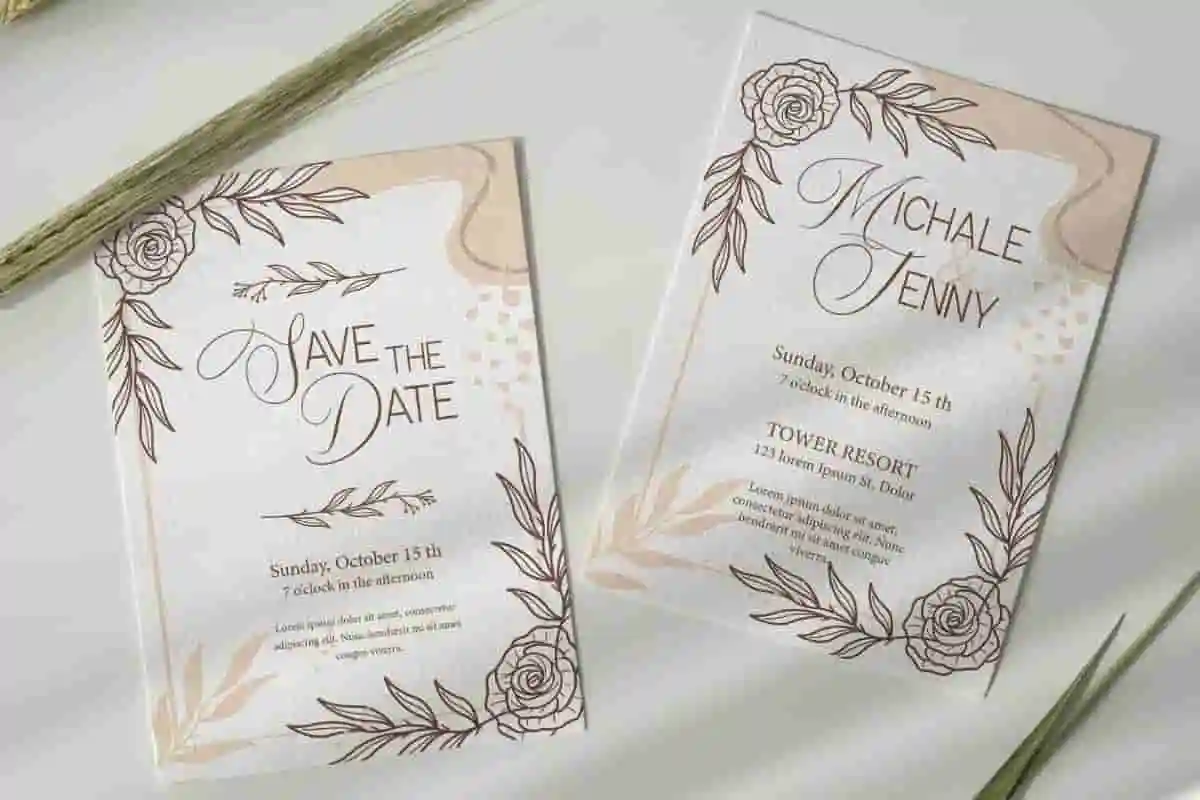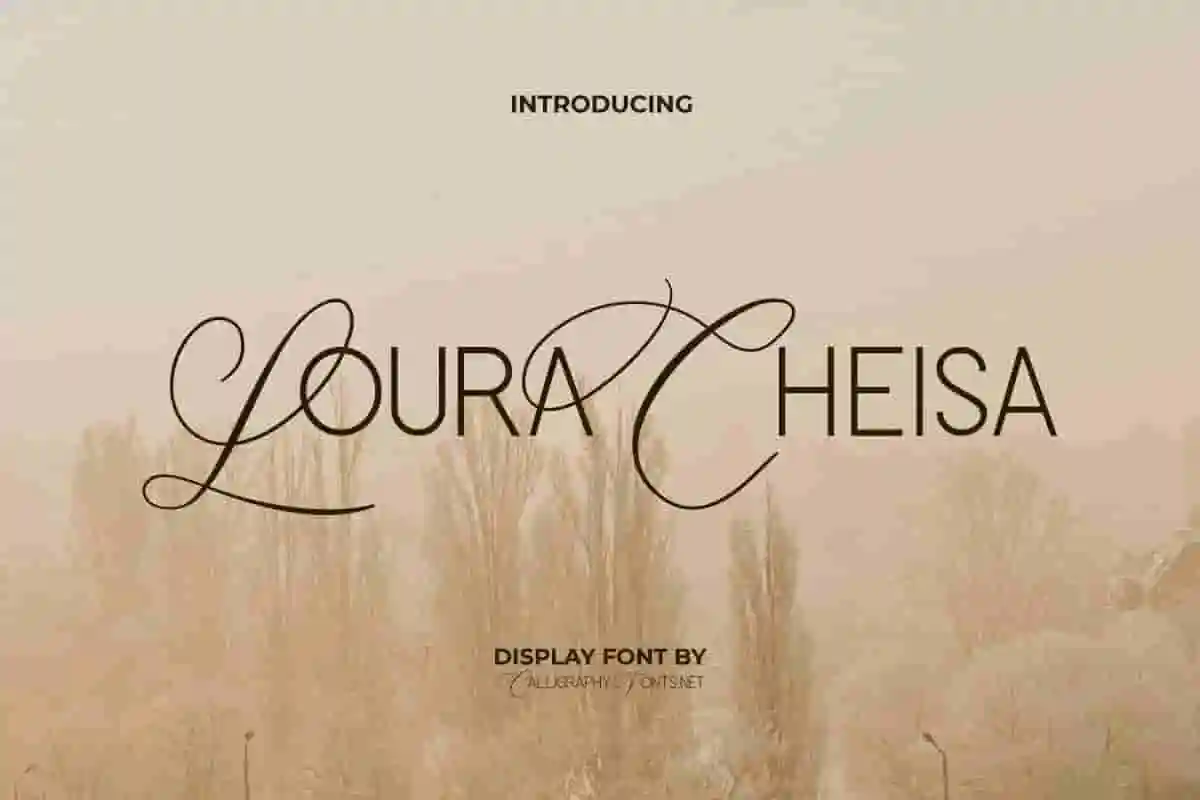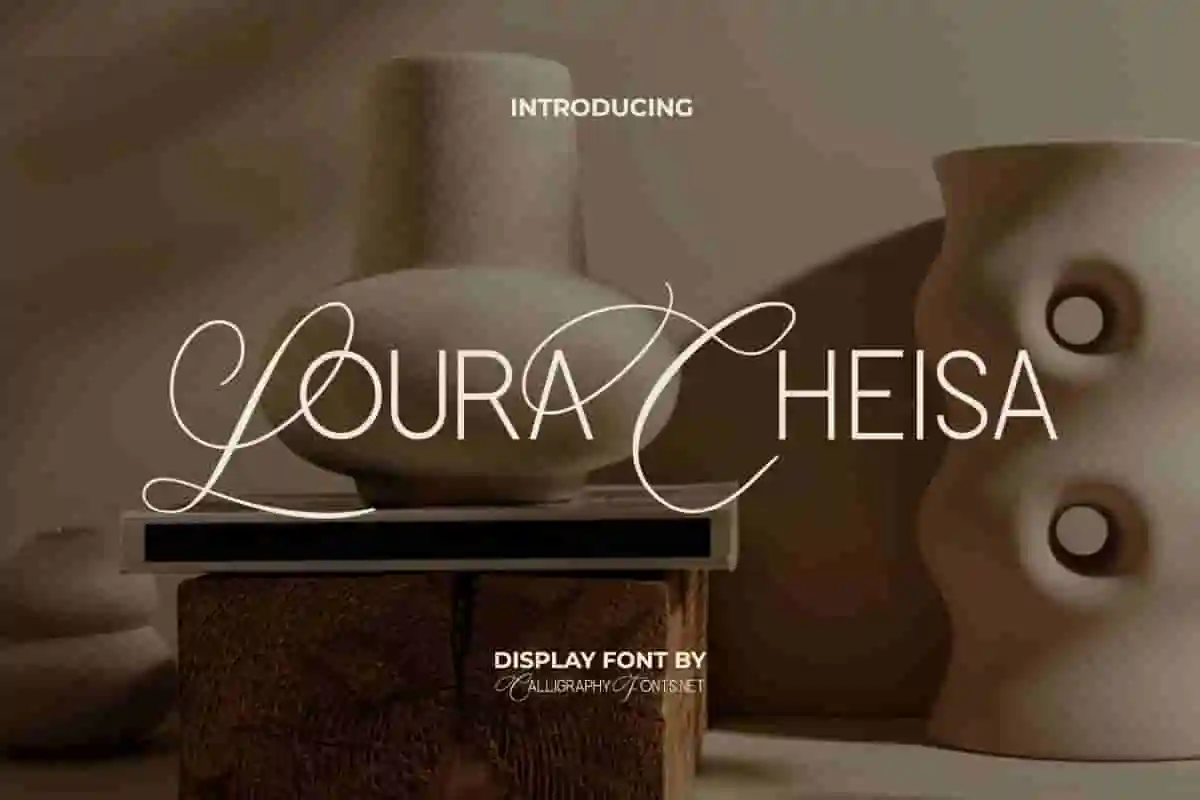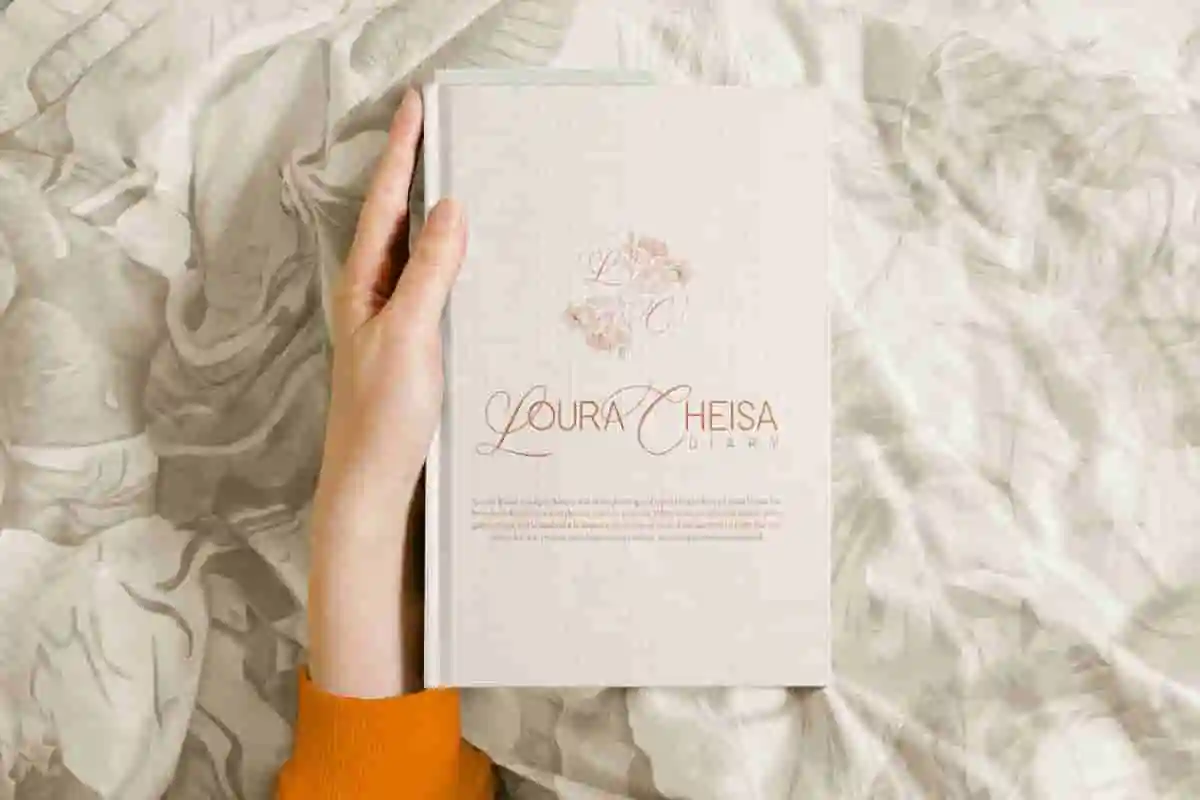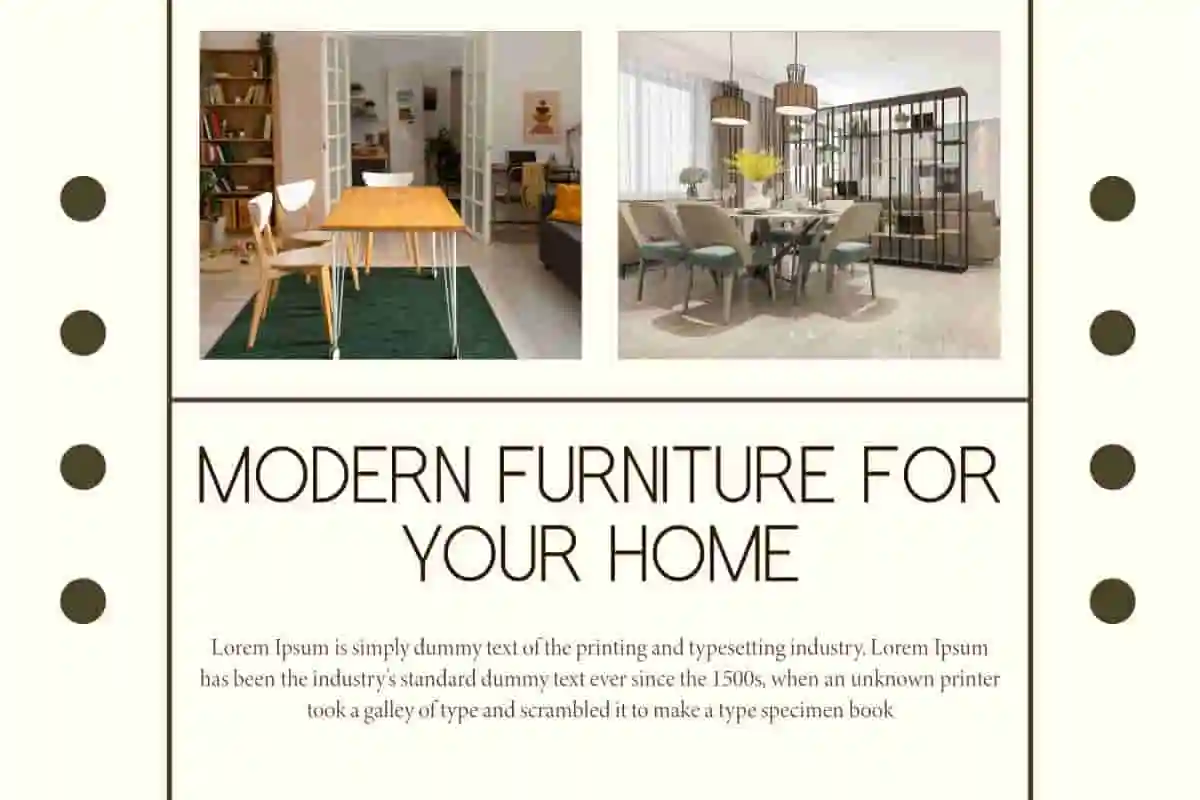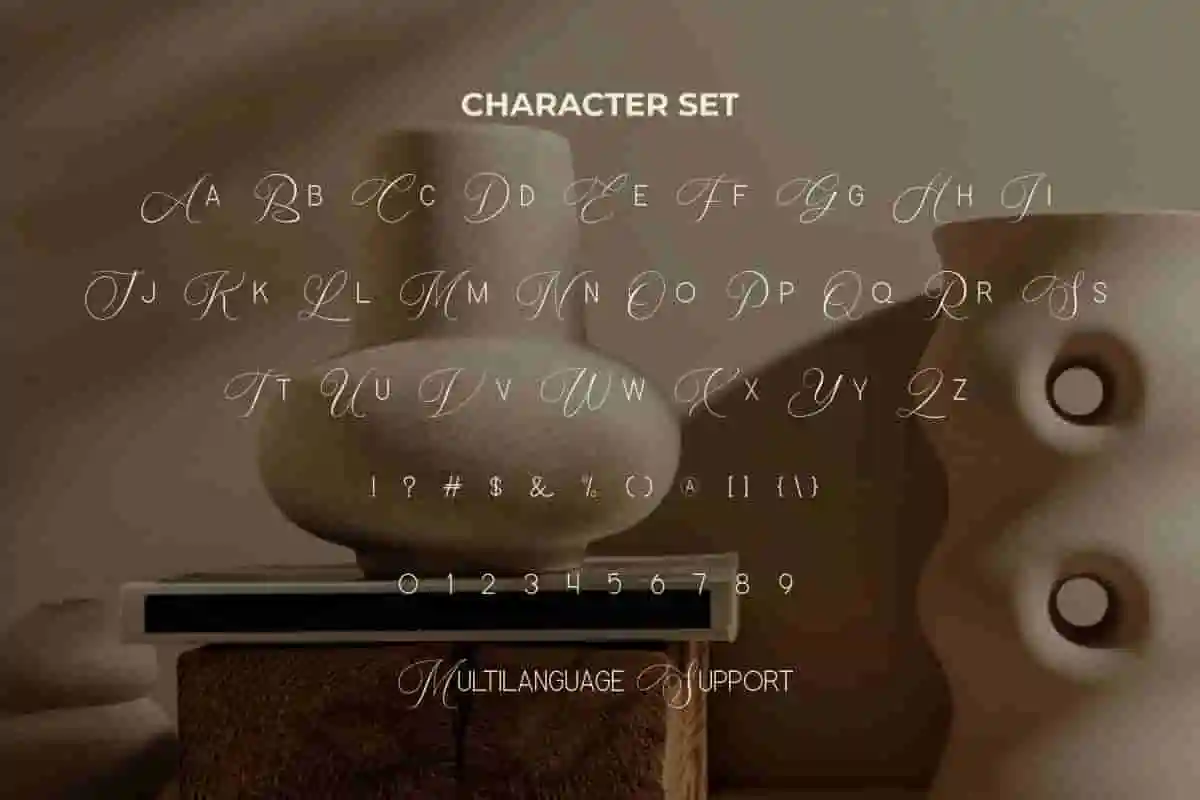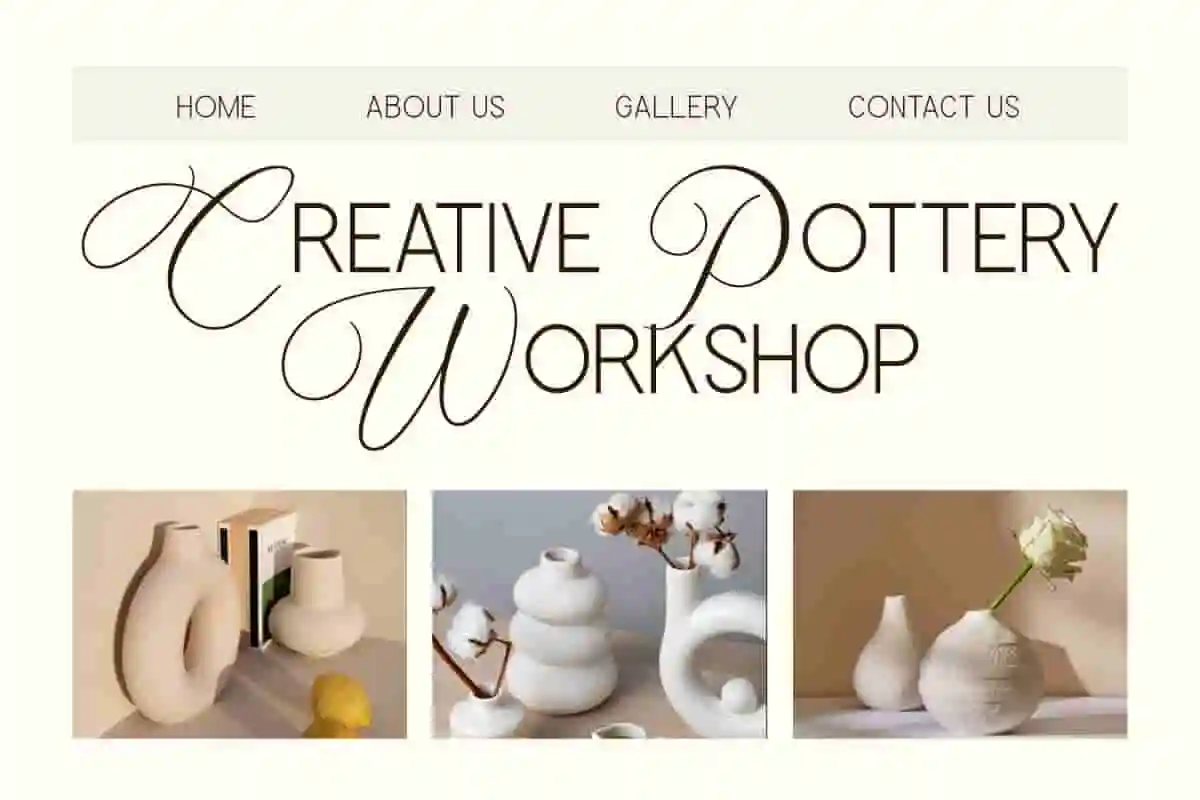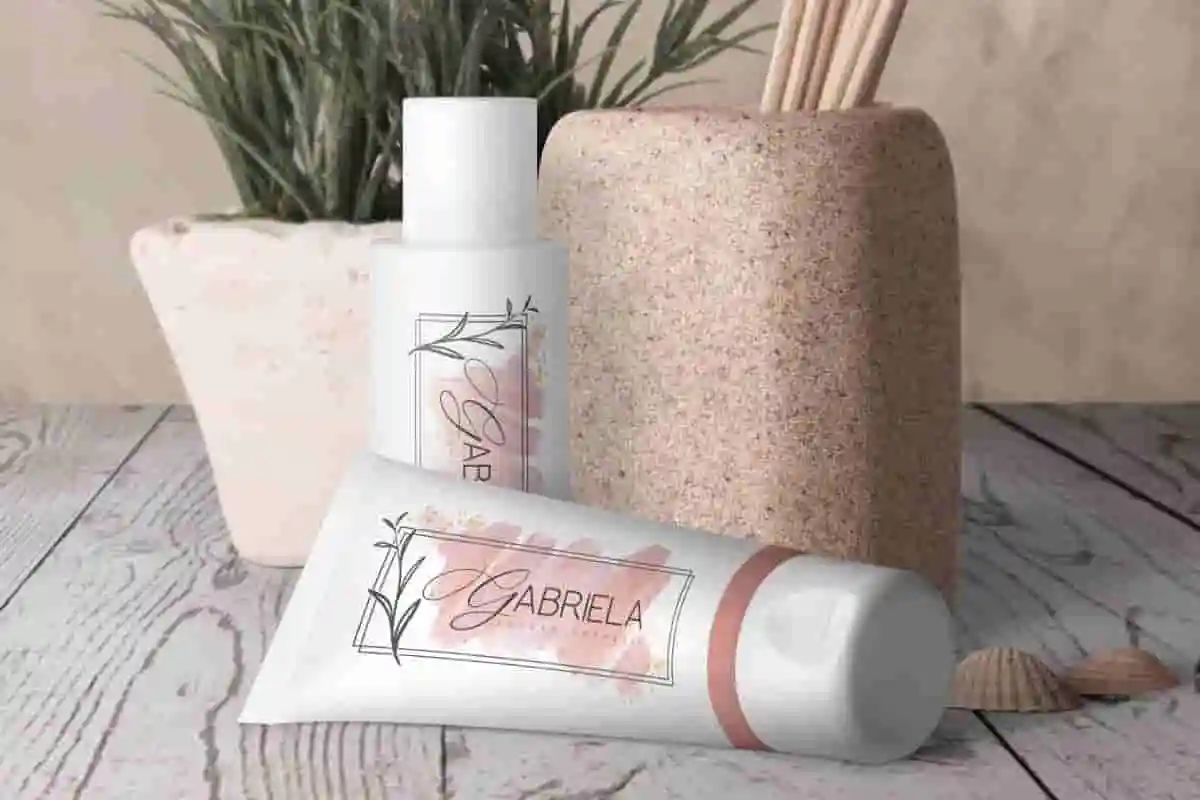
Loura Cheisa
Loura Cheisa Font
Loura Cheisa Handwriting Font is a classic display font made more modern and unified. The font will be suitable for apps, boutique, covers, craft, furniture, headers, invitation, skincare, title, web, etc.
Loura Cheisa Font is a sophisticated display font with a unique concept. This beautiful and friendly font uses upper and lower case characters in different styles. The combination of regular fonts with modern and stylish handwriting that is made more curved than usual. Perfect for apps, blogs, covers, headers, invitation, logos, mockup, product packaging, template, title, website, and others.
Add warmth and authenticity to your designs with Loura Cheisa Handwriting Font, a modern handwritten typeface crafted to look natural, stylish, and effortlessly charming. With smooth strokes and a personal feel, this font captures the beauty of handwriting and transforms it into a versatile design tool.
Perfect for logos, branding, quotes, wedding invitations, product packaging, social media posts, greeting cards, and blog headers, Loura Cheisa offers endless creative possibilities. Its casual yet elegant vibe makes it suitable for both professional projects and personal design work.
From modern branding to creative stationery, Loura Cheisa Handwriting Font adapts beautifully to both digital and print platforms. Its clean readability combined with organic charm makes it a go-to choice for designers who want to strike the perfect balance between professional and personal.
Loura Cheisa Handwriting Font can be used together or separately which basically gives a different look, arrange it freely until you get the look you want. This font has the potential to be your favorite font! Perfect for cafes, cosmetician, digital marketing, event organizer, fashion, graphic designer, handicraft, home furniture, pottery, publisher, skincare, wedding, and others.